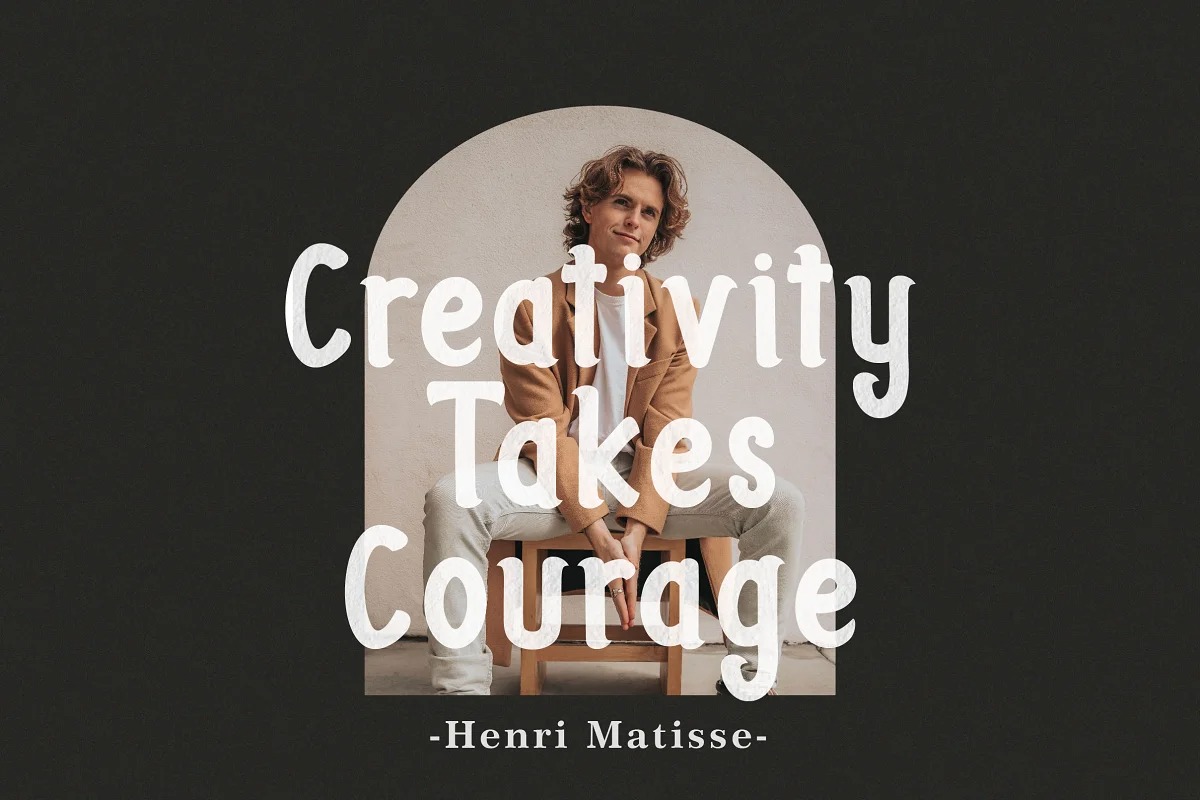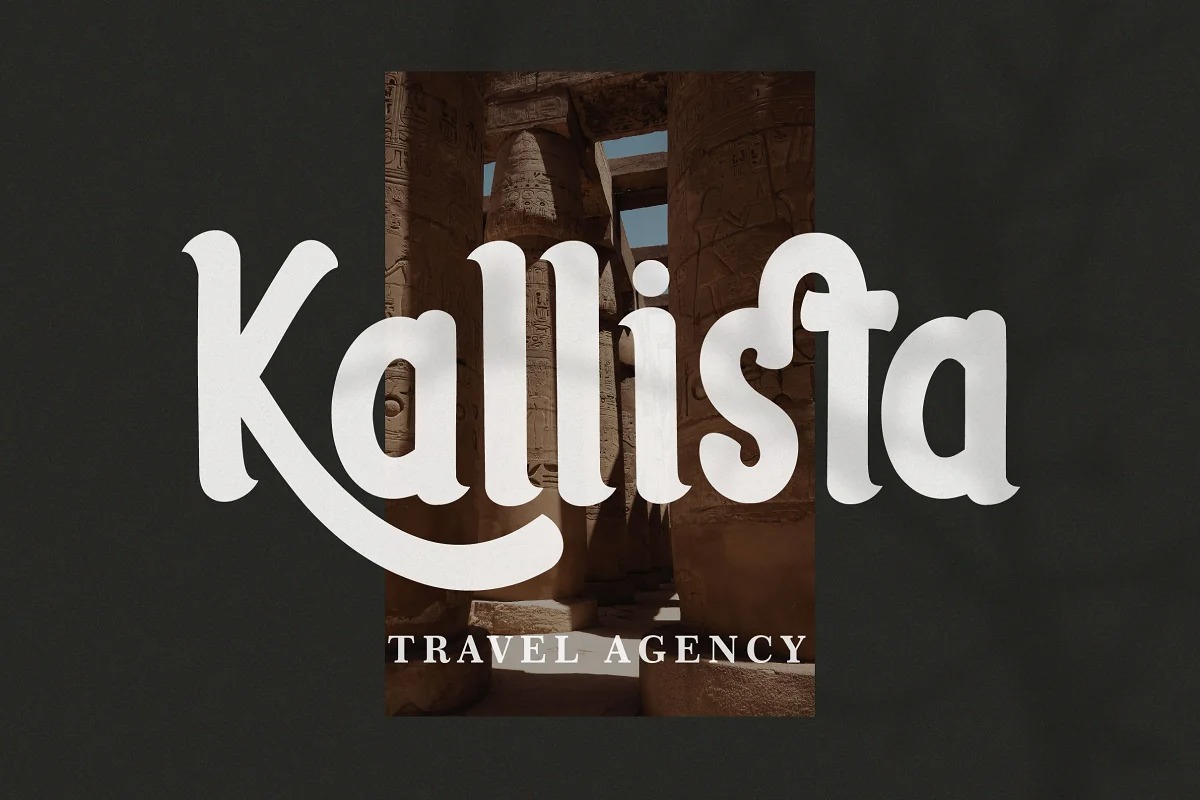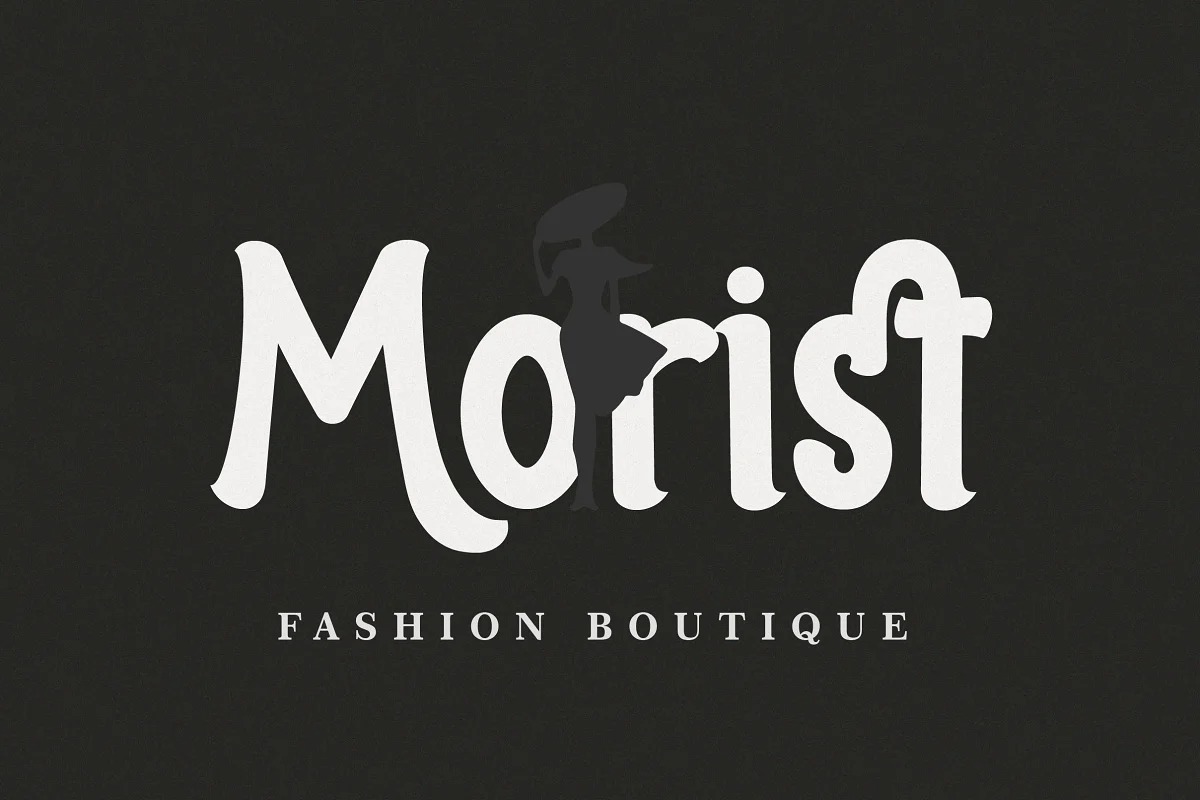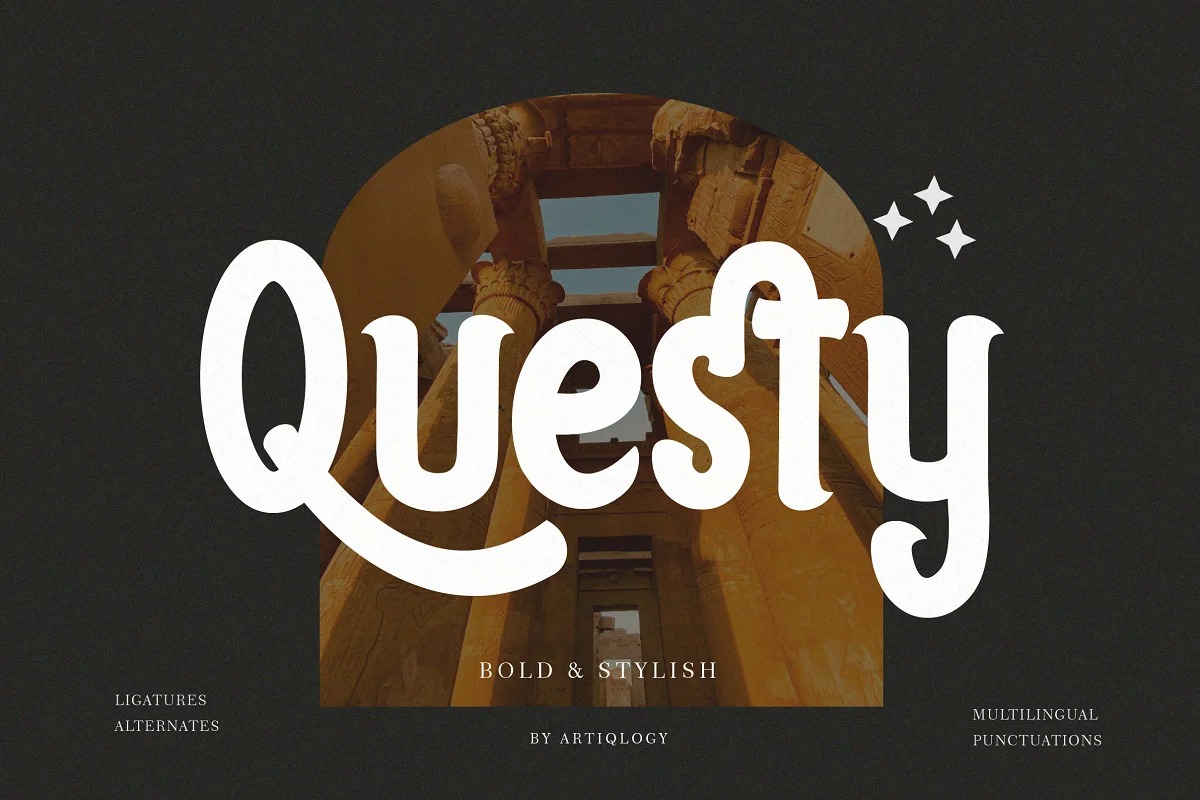
Questy Font
Questy Display Font
This is a unique, beauty and bold display font created by Artiqlogy with distinctive handwritten characters. It will add an incredibly trendy touch to your designs. Add this beautiful font to each of your creative ideas and notice how it makes them stand out!